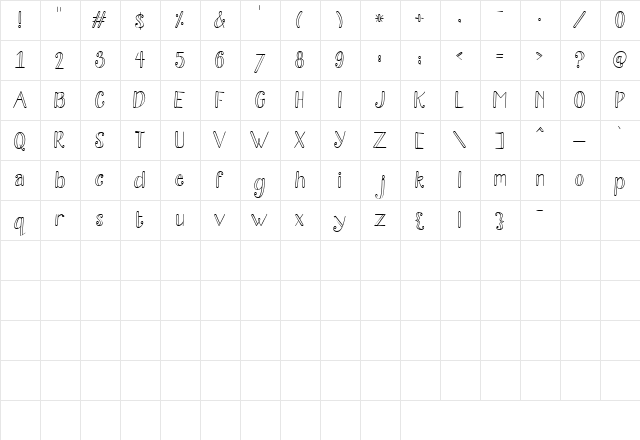
CK Simplicity Regular Font Preview
CK Simplicity Regular
Design Context for CK Simplicity Typeface
CK Simplicity is a composed and adaptable typeface that performs quietly and consistently across a wide range of design contexts.